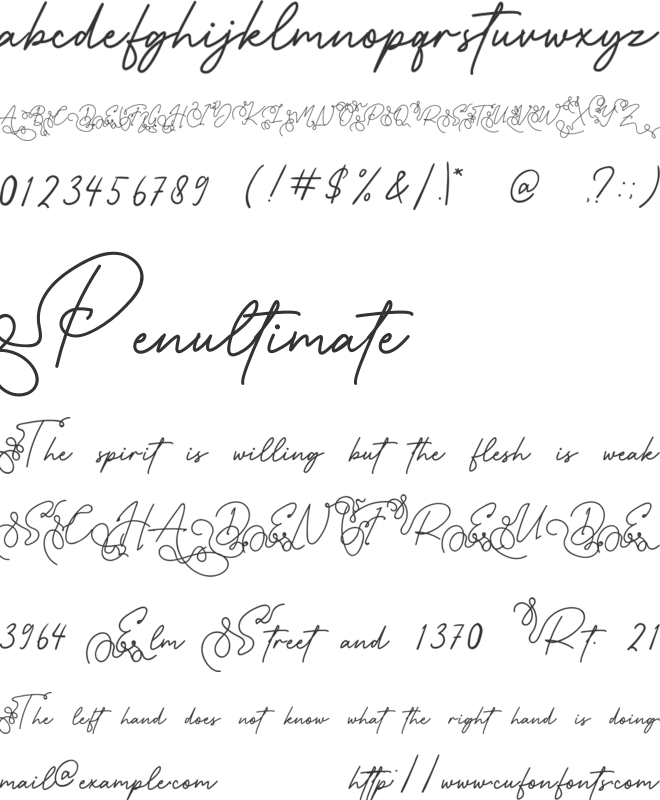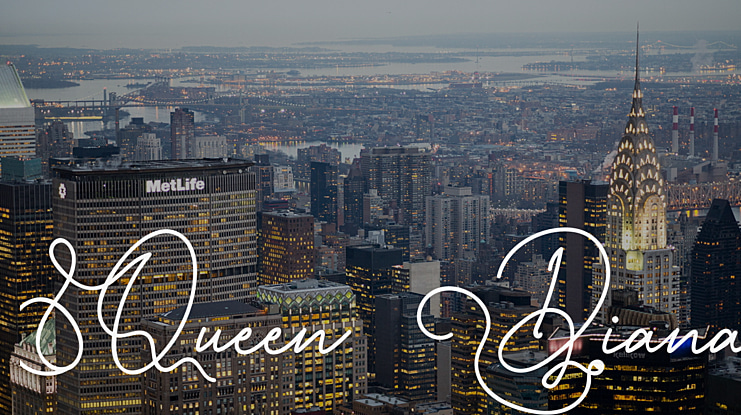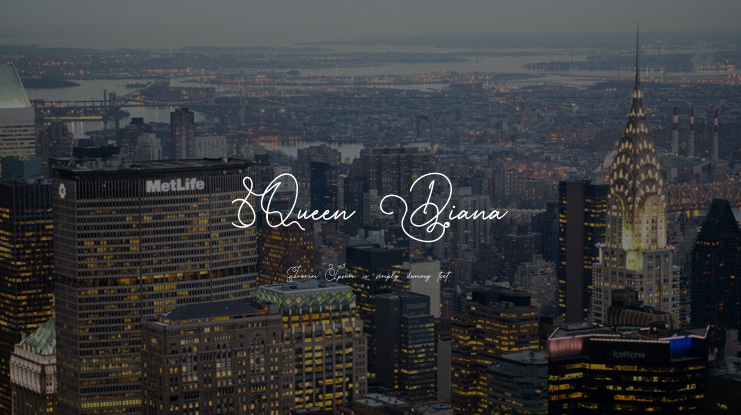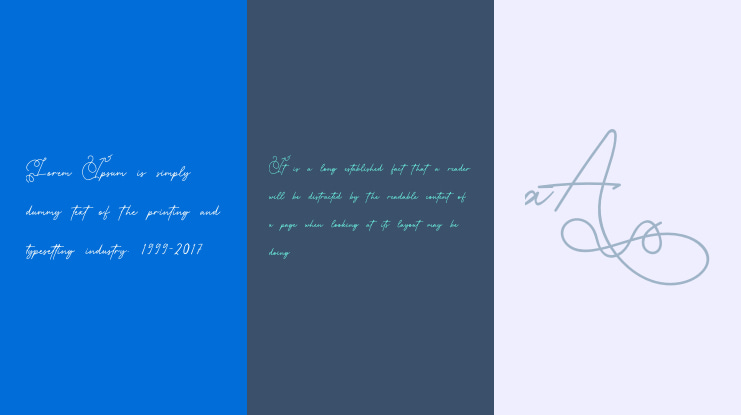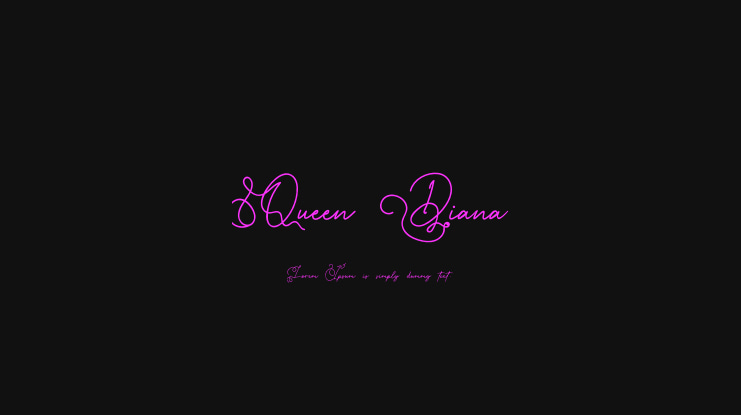
Queen Diana Font
Queen Diana is a delicate and elegant handwritten font. Masterfully designed to become a true favorite, this font has the potential to bring each of your creative ideas to the highest level!